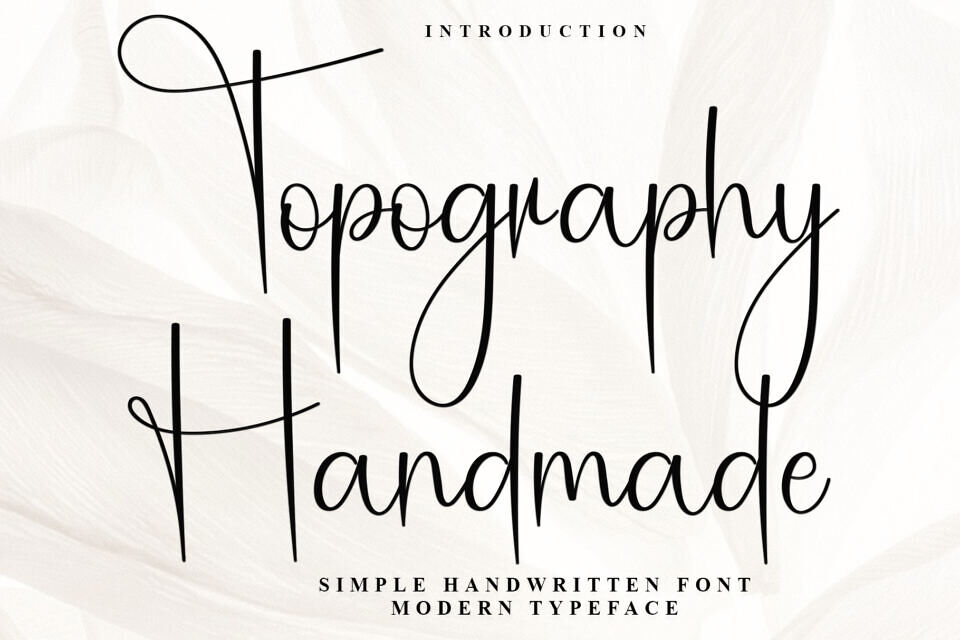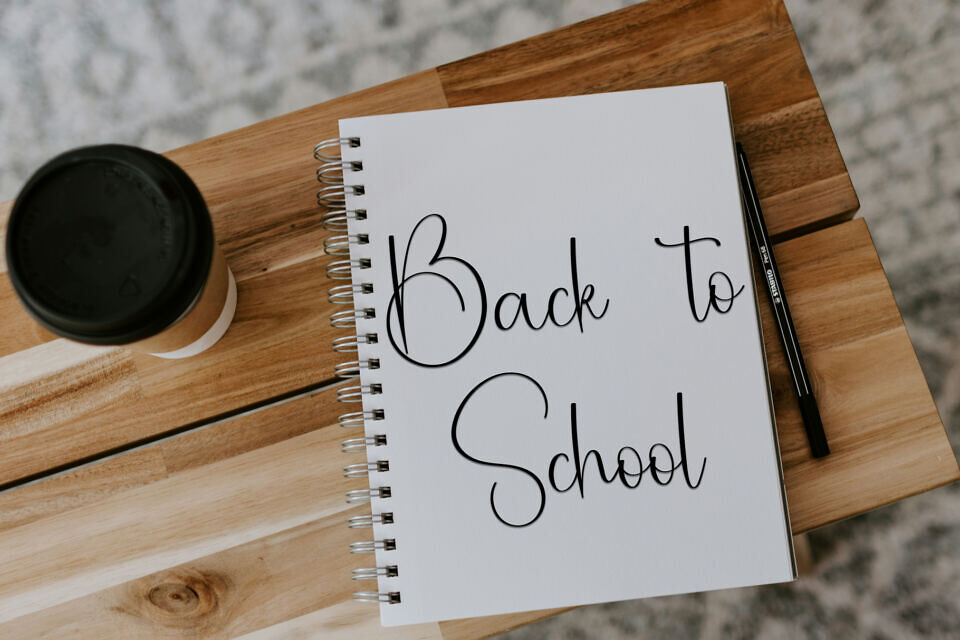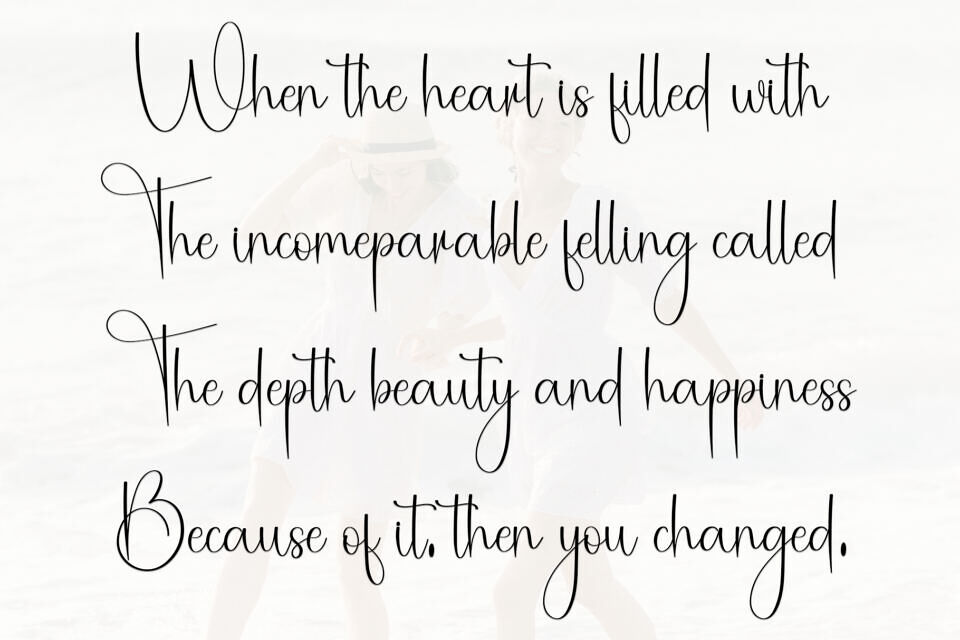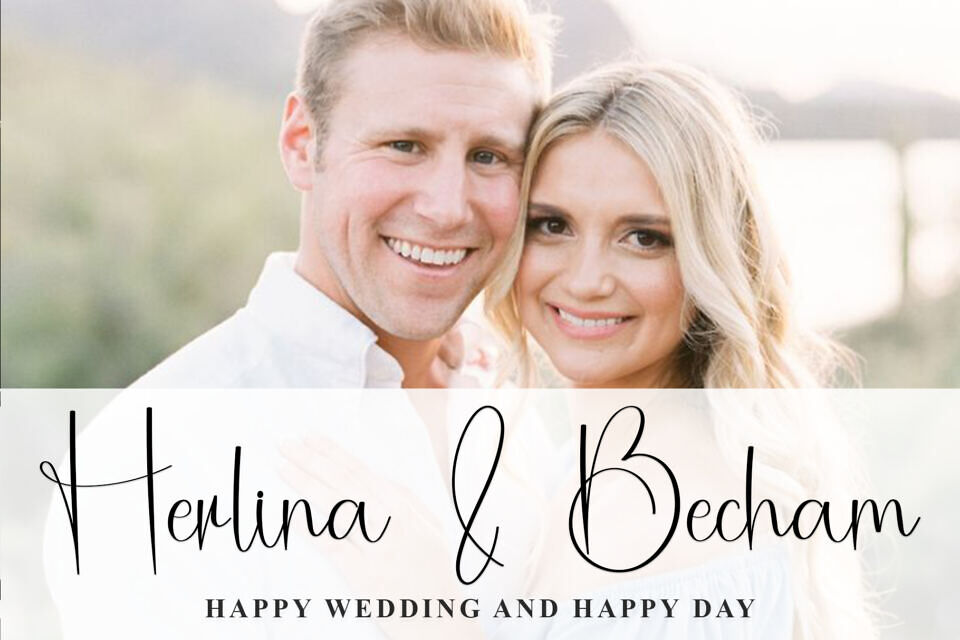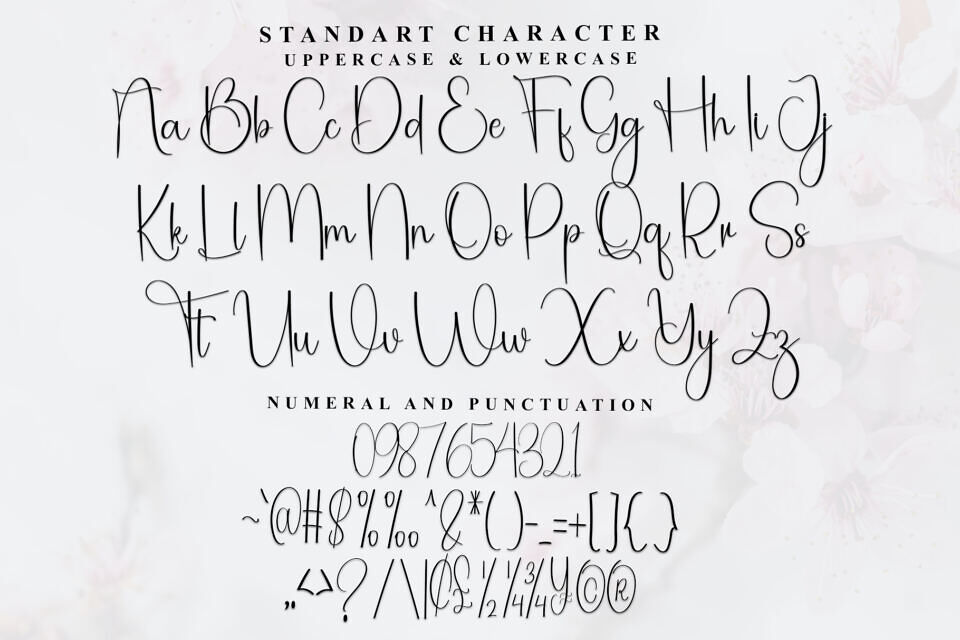
Topography Handmade is a lovely and timeless handwritten font. It is the best choice for creating eye catching logos, branding and quotes. Every letter has a unique and beautiful touch, which will make your design come alive!